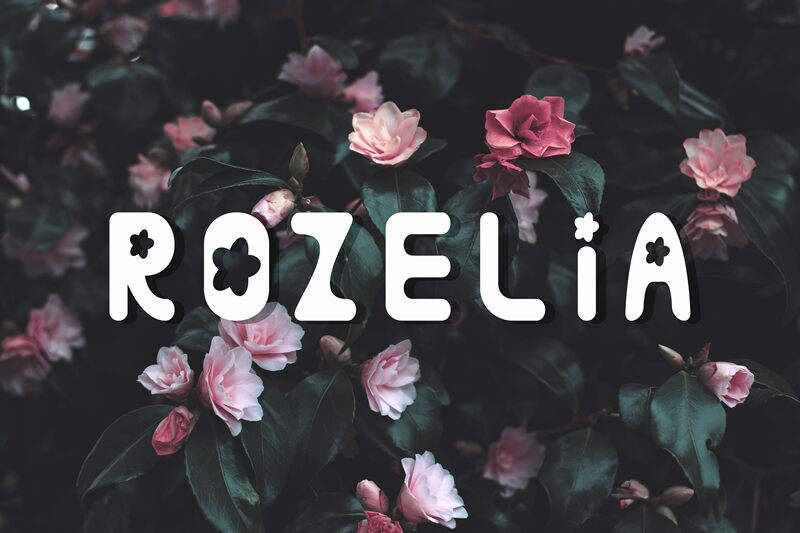
Rozelia, designed by Naashir Mubarok, is a captivating display font with decorative flair. Its semi-bold weight adds a touch of sophistication to any project, while its semi-condensed width allows for efficient use of space.
The graceful curves and intricate details make Rozelia perfect for luxury branding, elegant invitations, and refined packaging designs. Whether you're creating an eye-catching logo or crafting a visually stunning poster, Rozelia is sure to leave a lasting impression with its unique charm and versatility.